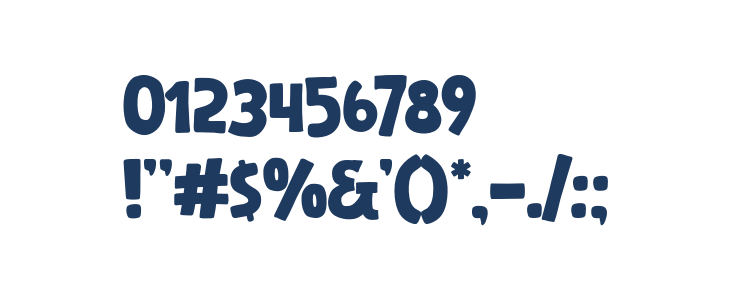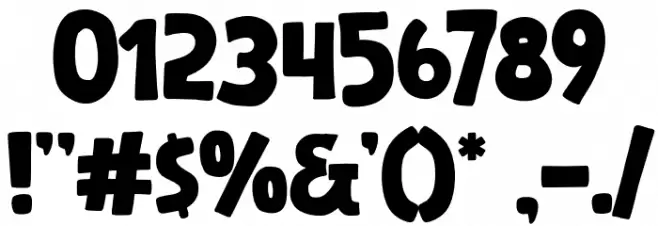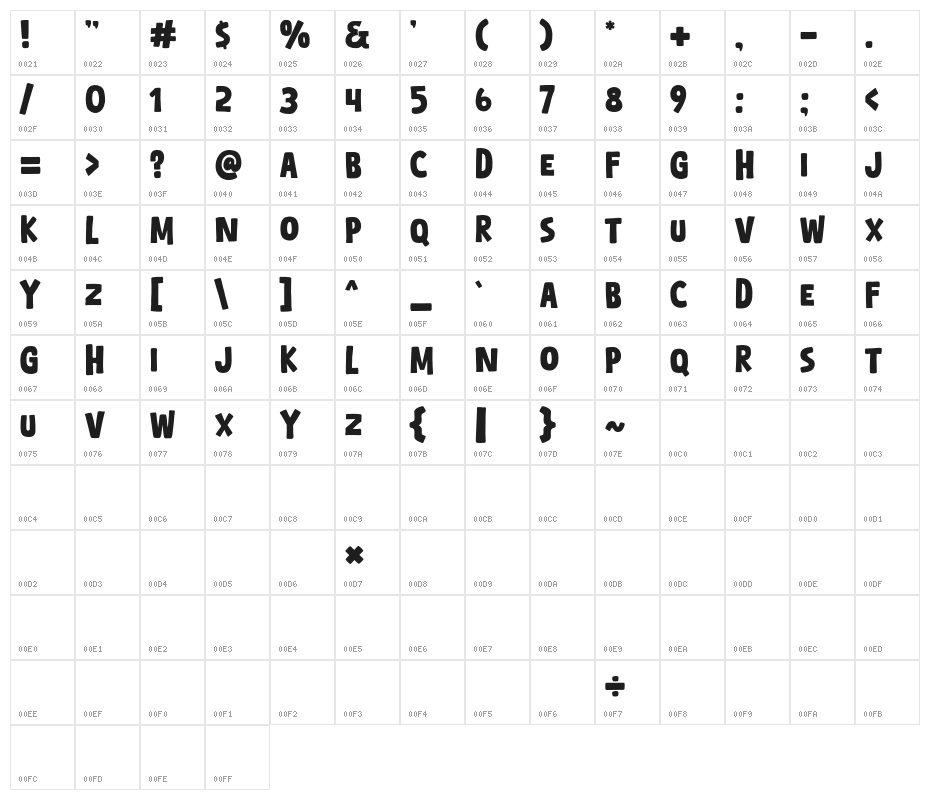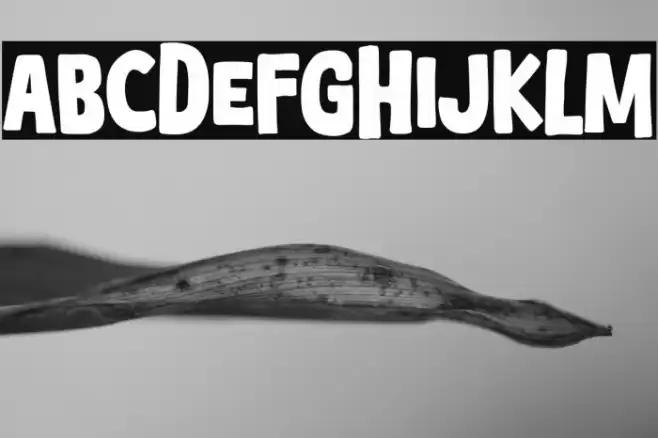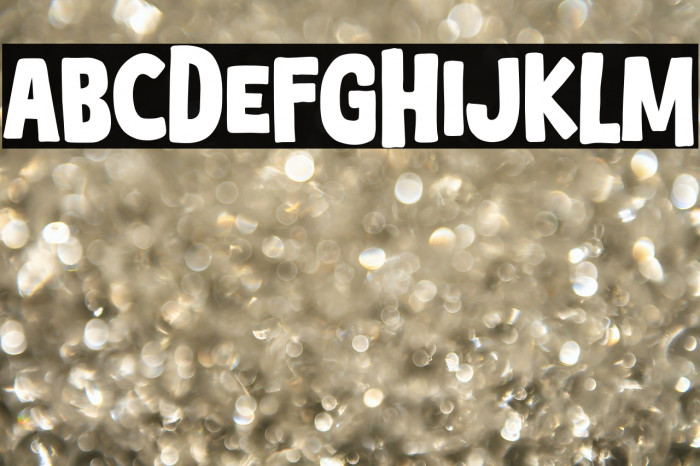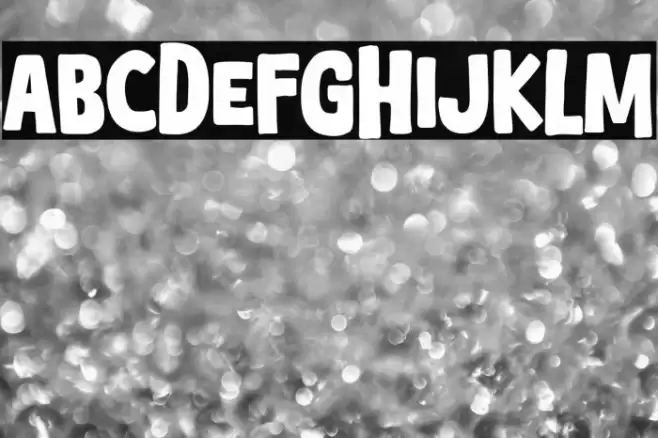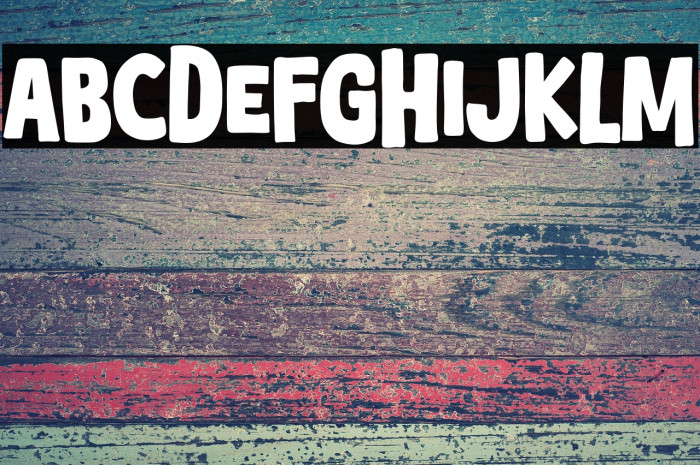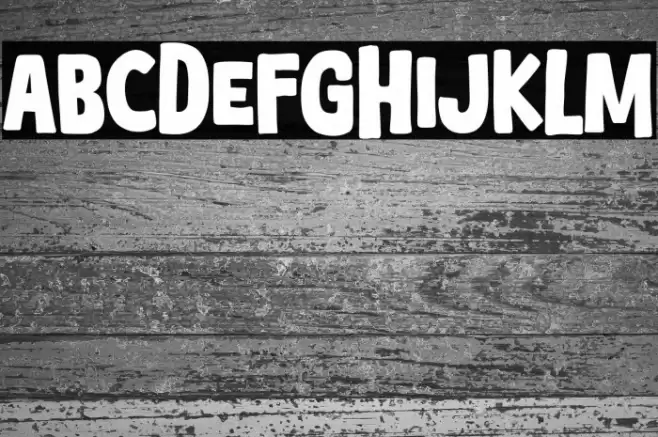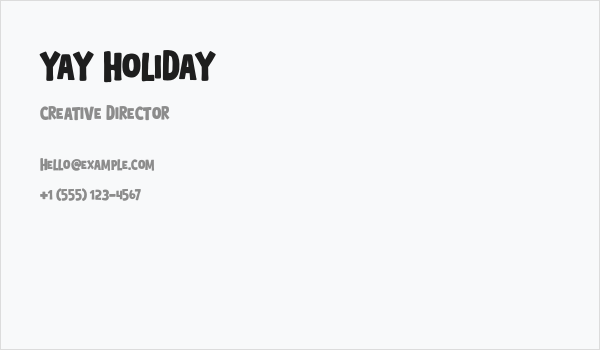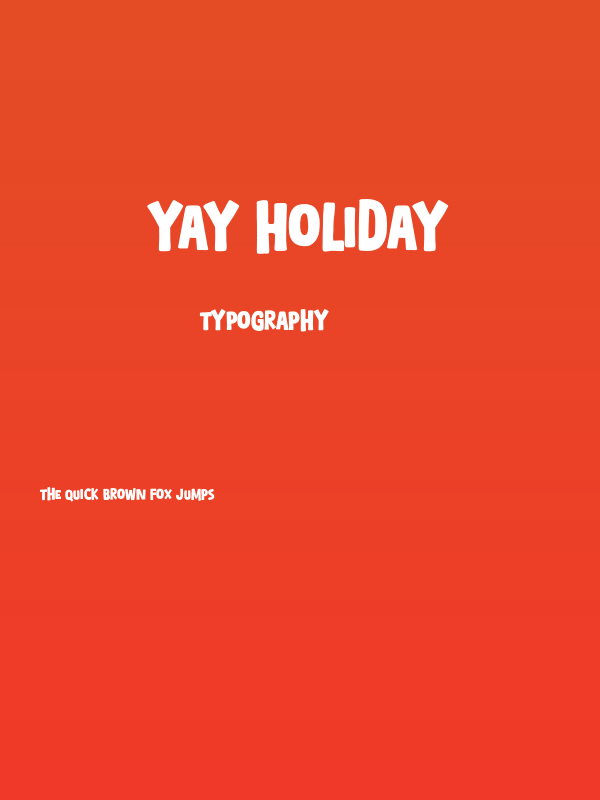
Yay Holiday Font
Yay Holiday Description
This playful and bold font exudes a sense of fun and energy, making it perfect for festive and lively designs. The characters are thick and rounded, with a slightly irregular shape that adds a whimsical touch. The uppercase and lowercase letters maintain a consistent style, while the numbers and special characters complement the overall look. This font is ideal for projects that require a cheerful and informal vibe, such as party invitations, children's book covers, or playful branding materials.
YAY-HOLIDAY UPPERCASE
YAY-HOLIDAY LOWERCASE
YAY-HOLIDAY OTHER CHARS
| Proposed Projects | Ideal for party invitations, children's books, and playful branding. |